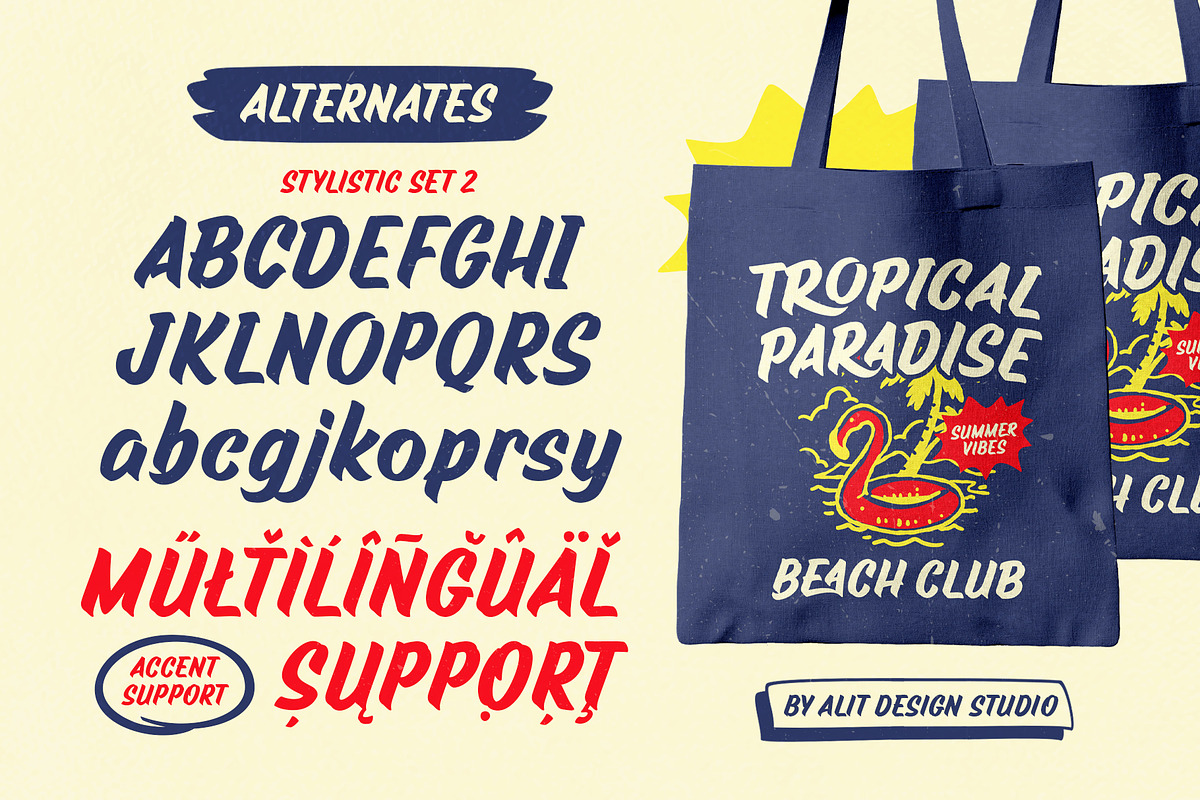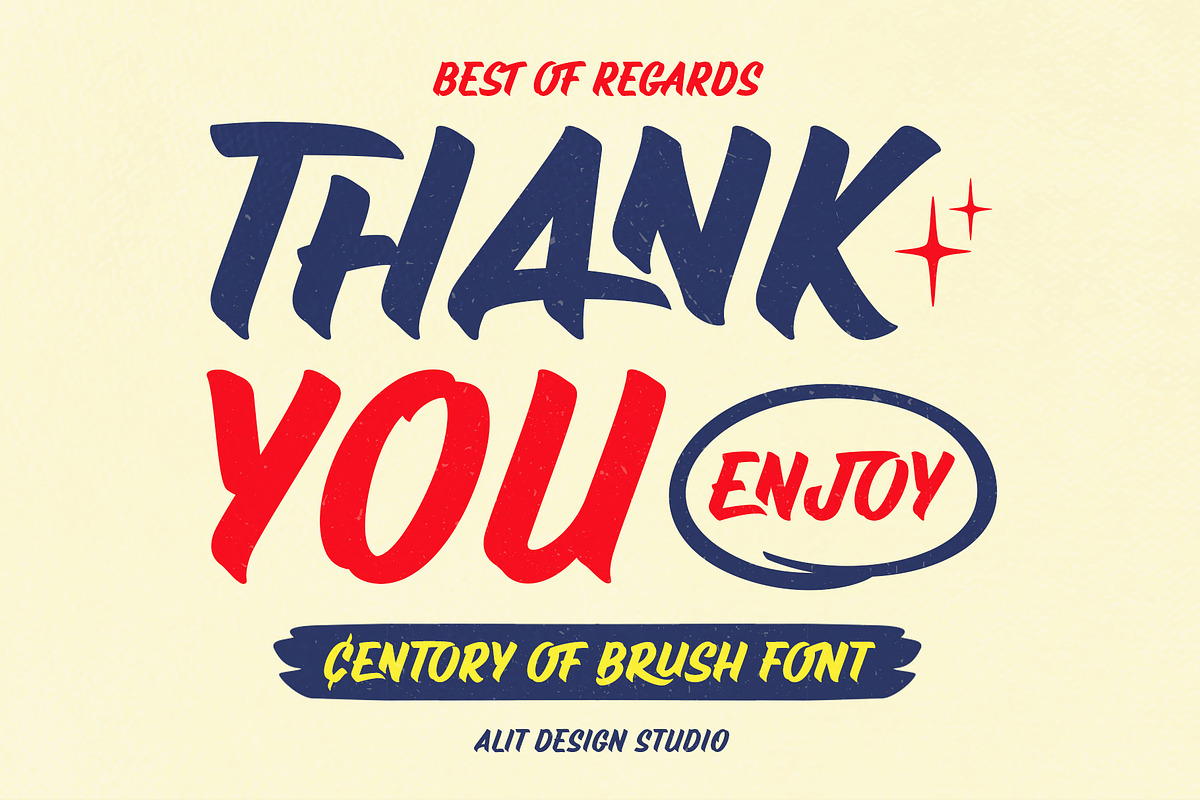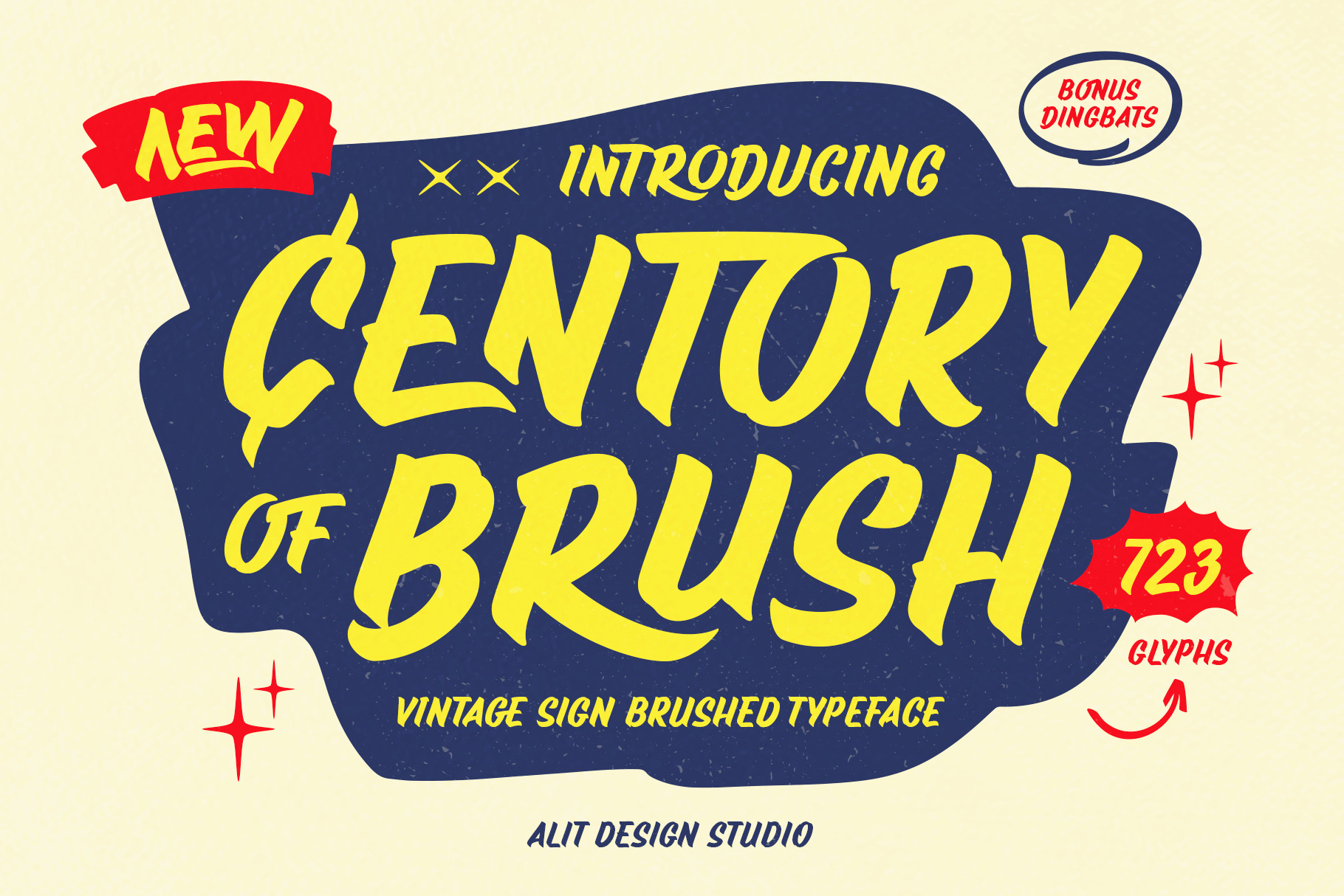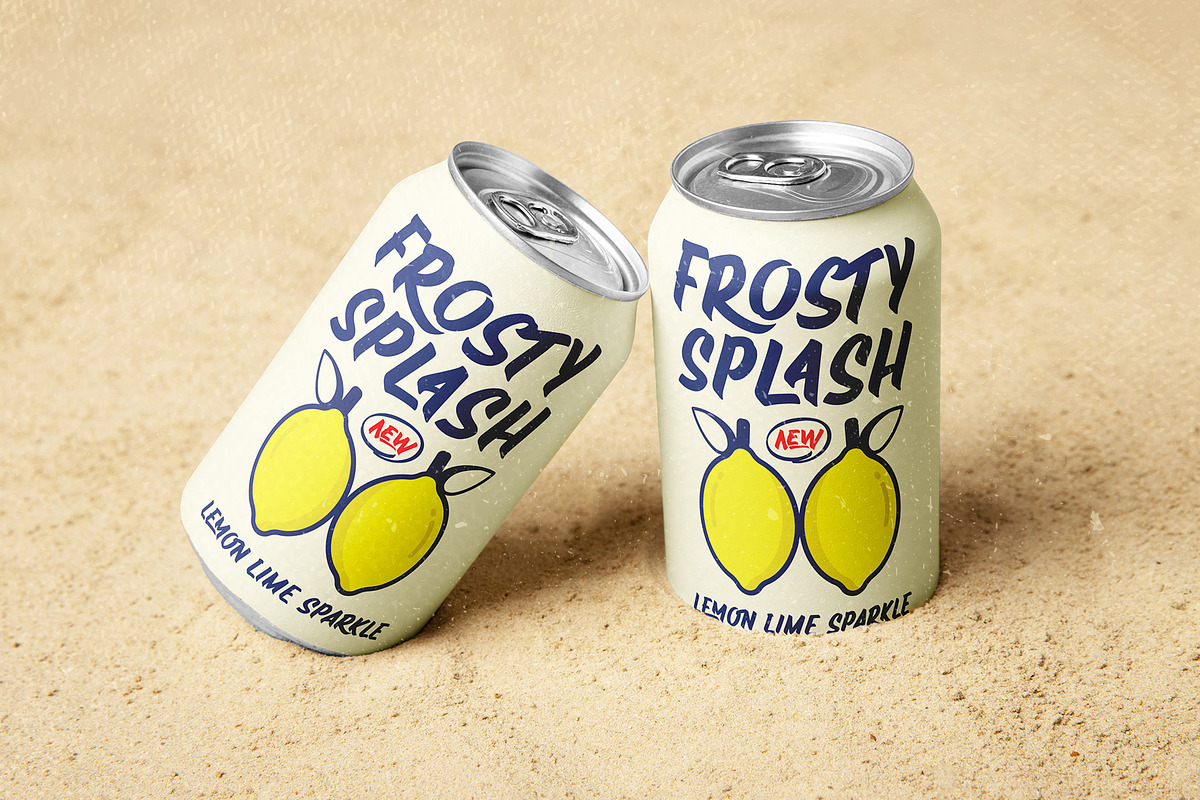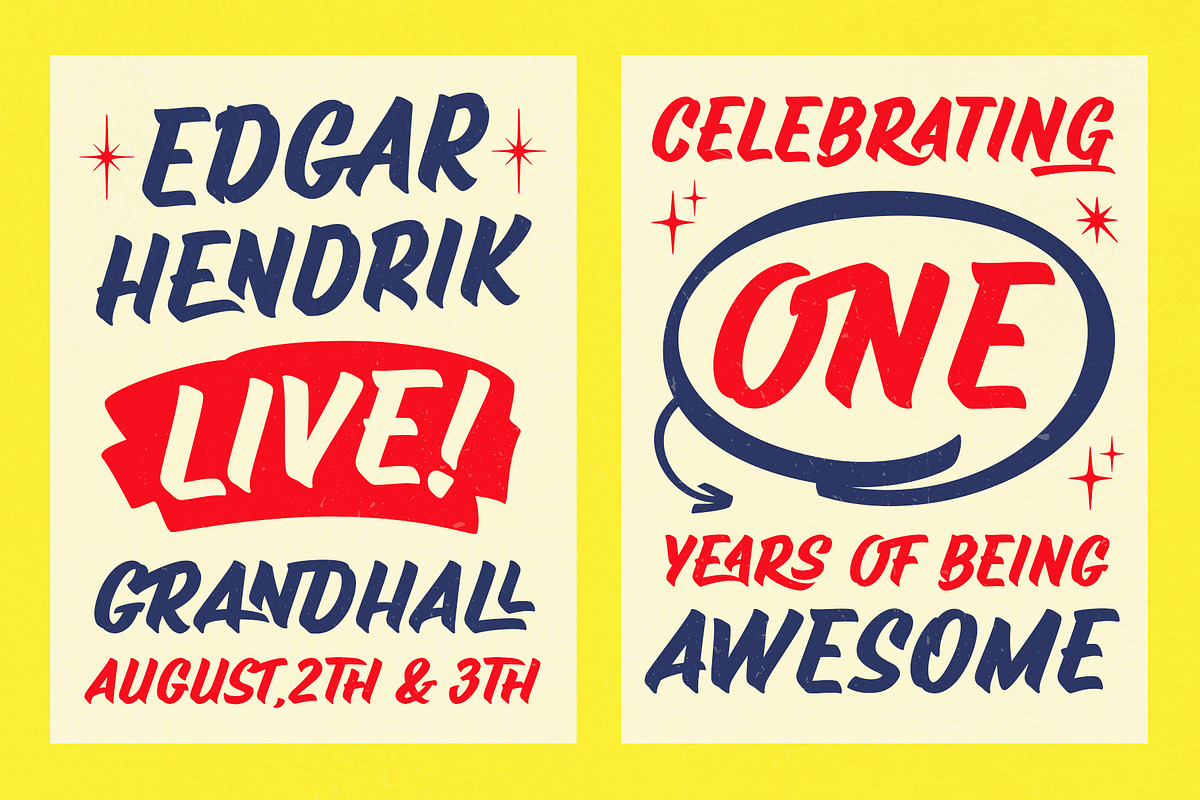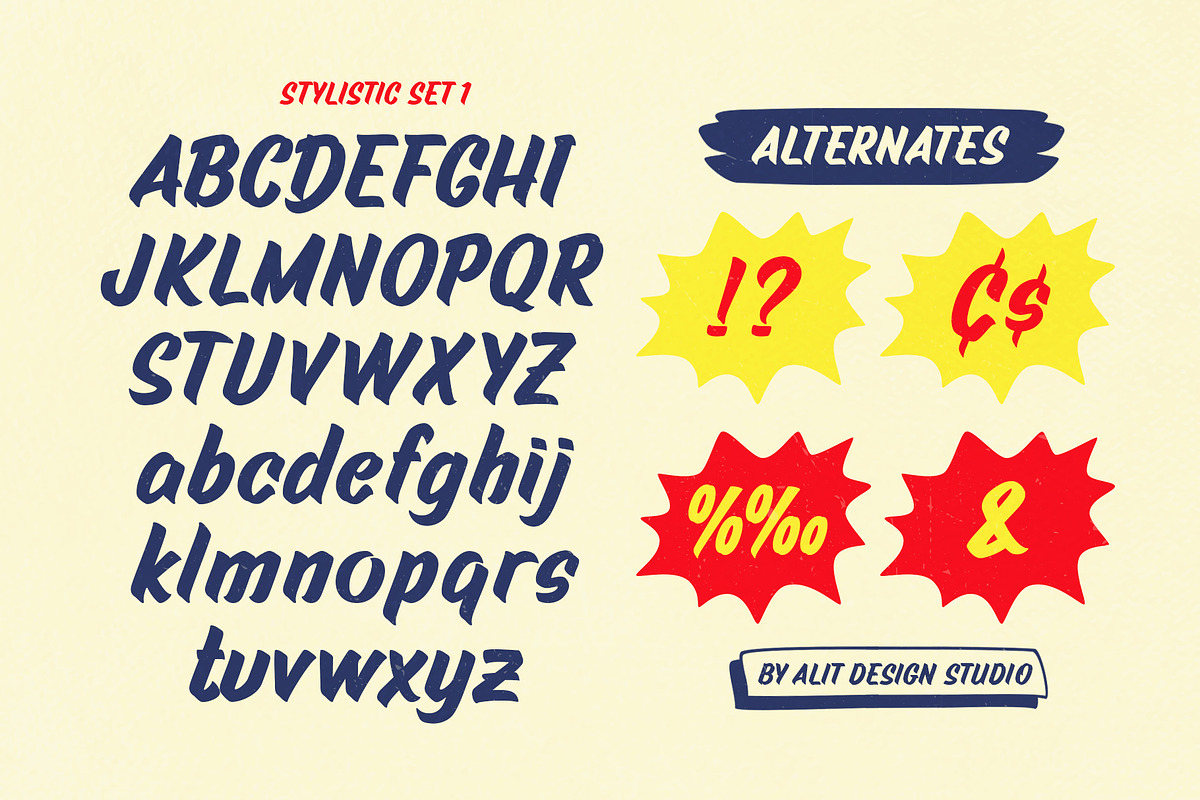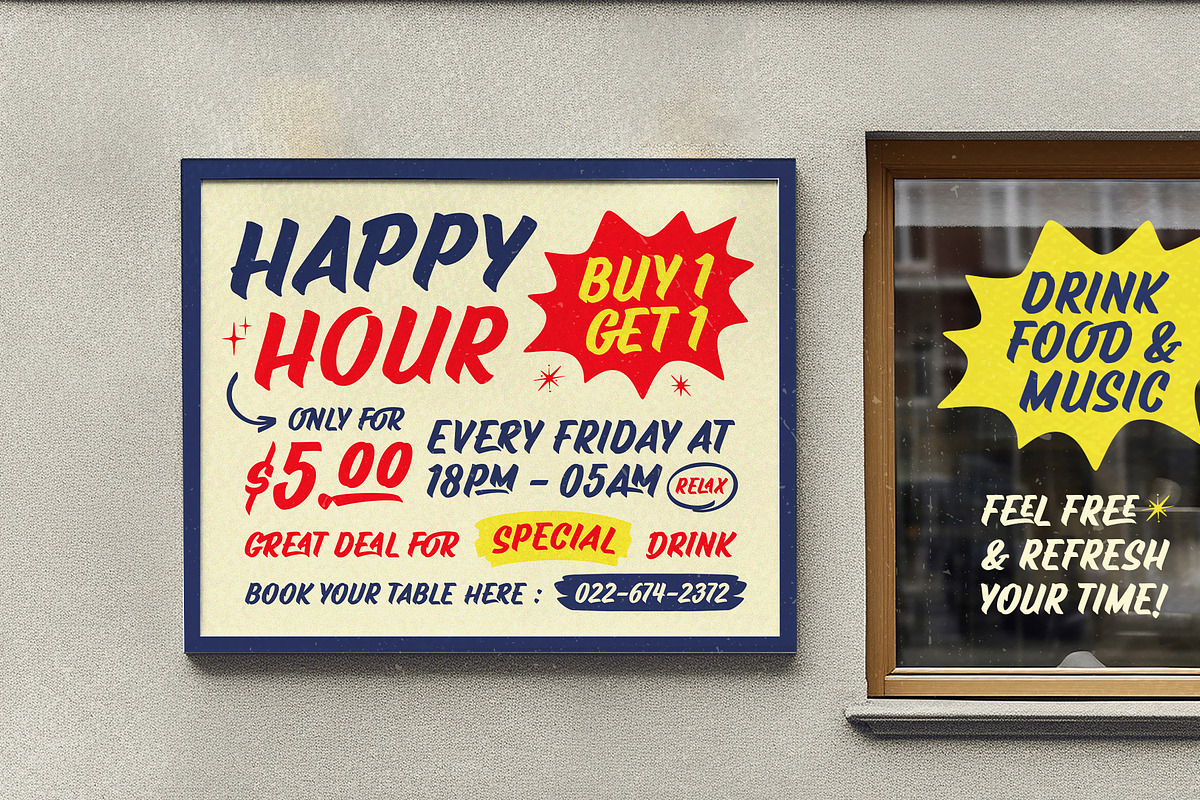
Century of Brush Font
Embrace the charm of timeless, vintage style with Century of Brush Font, a masterfully crafted, smooth-brush typeface that brings sophistication to any project. Inspired by the elegance of classic handwritten scripts, this font delivers an authentic touch of nostalgia while maintaining modern functionality.
- 723 Glyphs: Century of Brush comes with an extensive set of glyphs to enhance creativity and flexibility, letting you achieve unique combinations and expressive designs.
- Alternates & Ligatures: Customize each letter with stylish alternates and natural ligatures to create a seamless flow, adding a touch of personal artistry to any composition.
- PUA Encoded: Unlock a full suite of accessible characters without the need for special software. Century of Brush makes it easy to access all unique alternates and symbols.
- Multilingual Support: This font is optimized for diverse languages, extending its charm across linguistic boundaries.
- Dingbats Included: Add flair to your designs with an assortment of complementary dingbats, perfect for logos, labels, and decorative accents.
Century of Brush Font brings a warm, handwritten aesthetic to both digital and print projects. Ideal for vintage logos, packaging, wedding invitations, and editorial design, this font seamlessly bridges the classic and contemporary. Make your designs unforgettable with the smooth brushstroke elegance of Century of Brush.